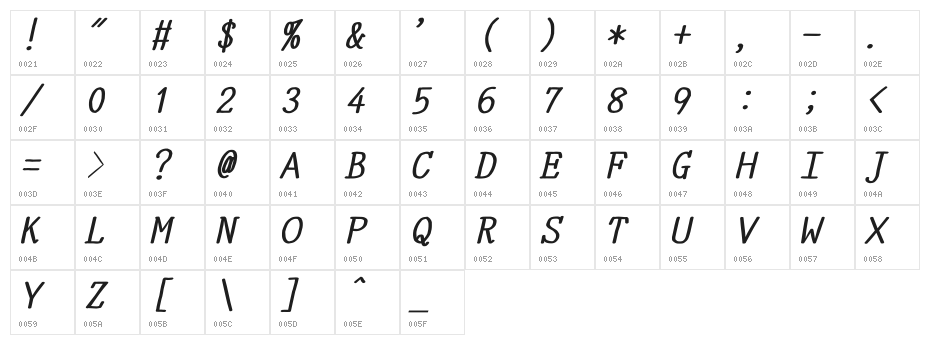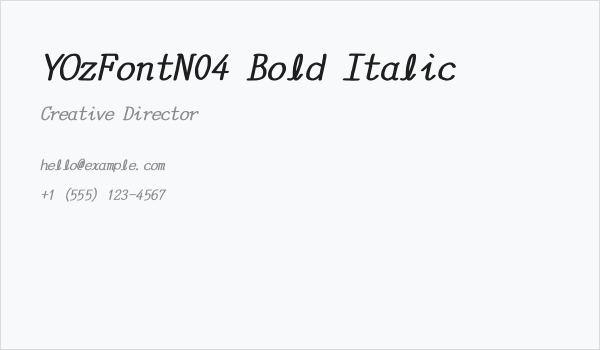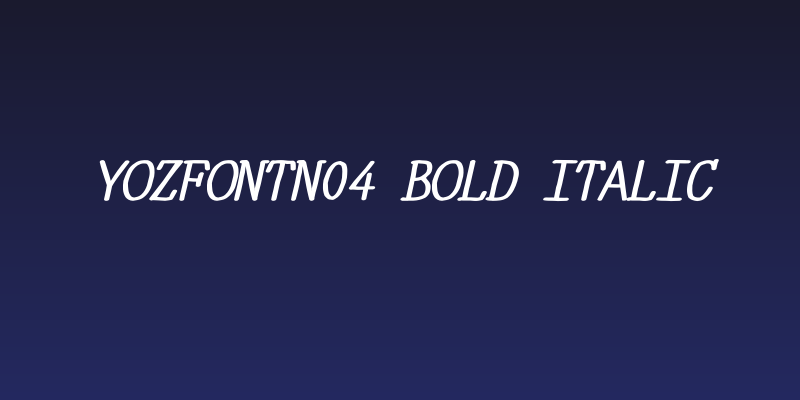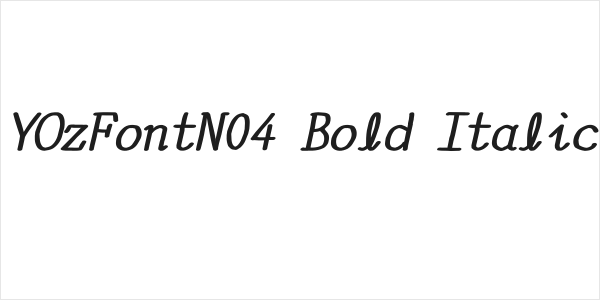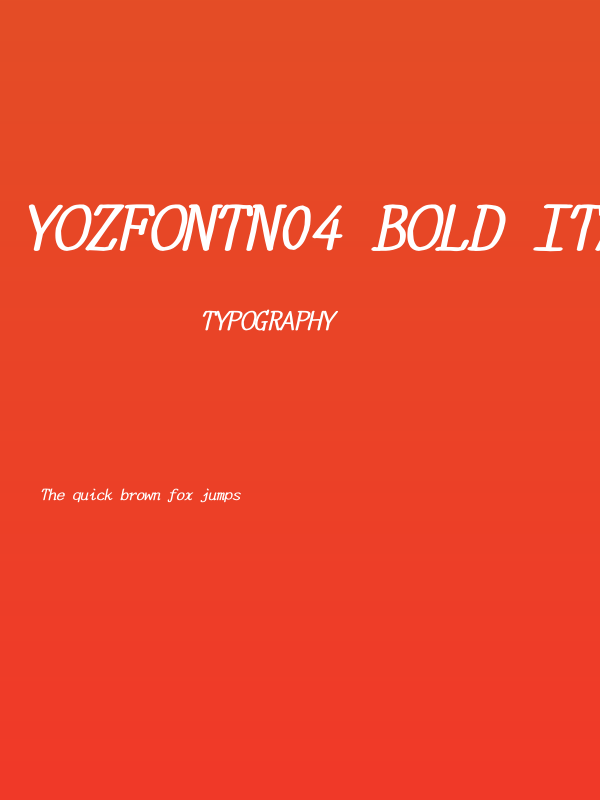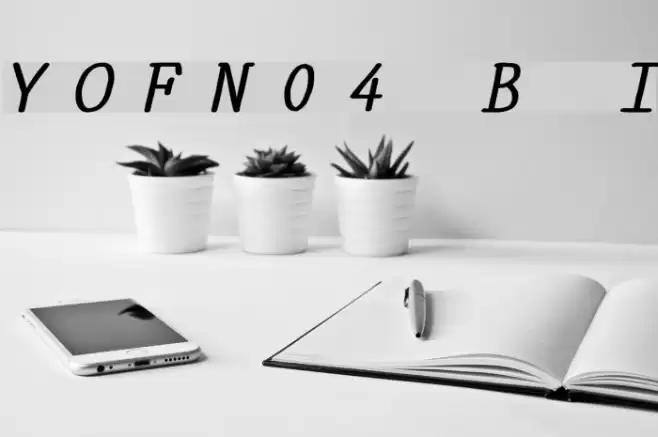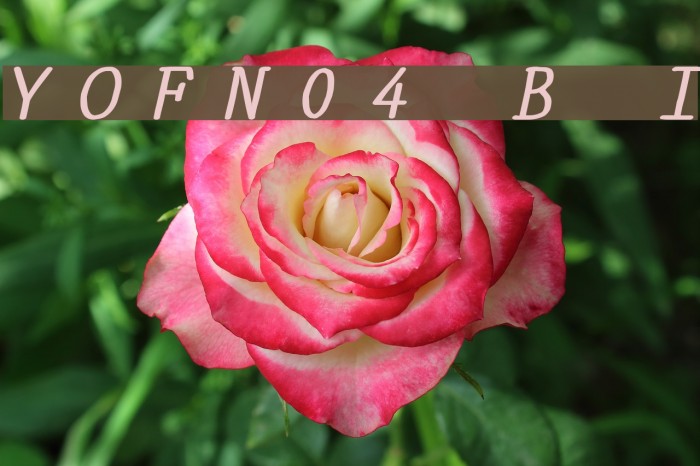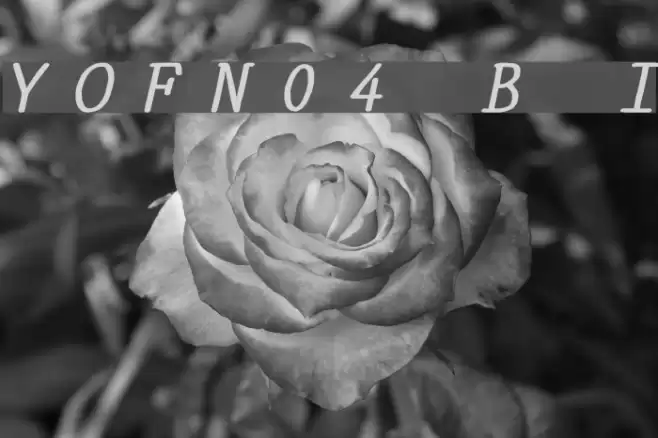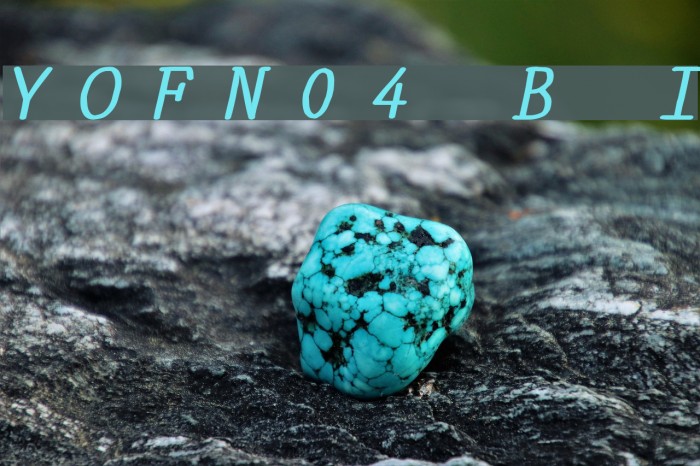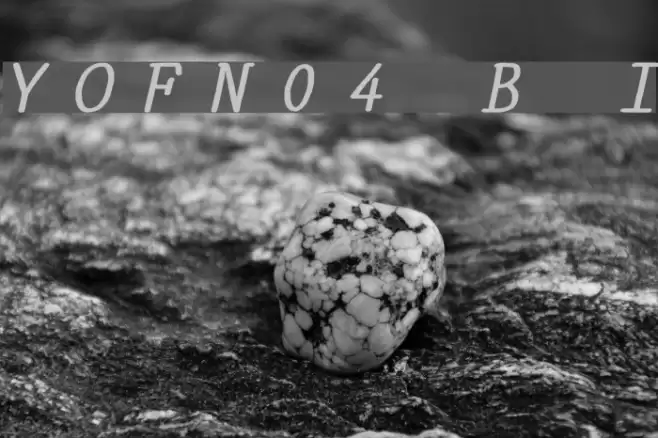
YOzFontN04 Bold Italic Font
YOzFontN04 Bold Italic Description
This font features a dynamic and expressive style, characterized by its bold and italicized letterforms. The uppercase letters are elegantly slanted, giving a sense of movement and fluidity. The lowercase letters maintain a consistent slant, complementing the uppercase with a cohesive look. Numbers are distinct and easy to read, with a slight slant that matches the overall style. Special characters are well-integrated, maintaining the font's unique flair. The strokes are moderately thick, providing a strong presence while retaining legibility. This font is ideal for projects that require a touch of sophistication and energy.